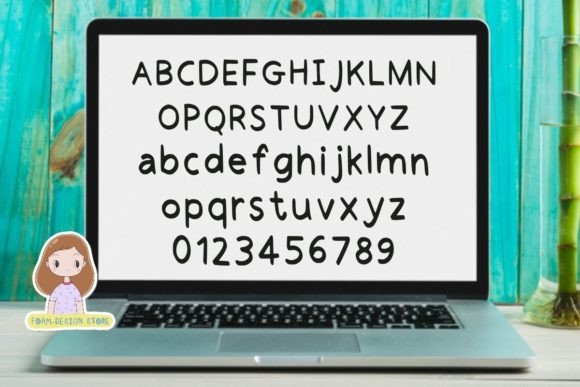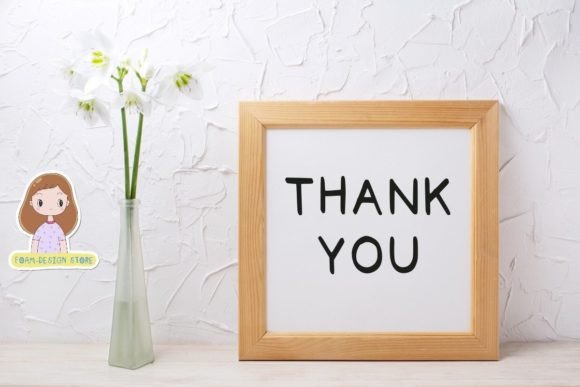
Introducing Gift Handmade Font: The Perfect Blend of Simplicity and Coolness
In the world of typography, a font can make all the difference in the way a message is conveyed. For designers, crafters, and digital artists, finding the right font can be a daunting task. However, if you’re looking for a font that exudes friendliness, simplicity, and coolness, look no further than the Gift Handmade Font. This versatile font is designed to cater to a wide range of contexts, making it an ideal choice for various creative projects.
What Makes Gift Handmade Font Special?
Gift Handmade is a simple and cool display font that boasts a friendly feel, making it incredibly flexible and adaptable to different design needs. Its unique charm lies in its ability to seamlessly blend into various contexts, from crafting and digital designing to presentations and more. The font’s trendy vibe and endless variations make it an exciting addition to any design project.
Key Features of Gift Handmade Font
- Simple yet Impactful: The Gift Handmade Font strikes the perfect balance between simplicity and visual appeal. Its clean lines and smooth curves make it easy to read and understand, while its unique style ensures it stands out from the crowd.
- Cool Display Font: As a display font, Gift Handmade is designed to grab attention and make a statement. Its cool and modern aesthetic makes it perfect for headlines, titles, and other prominent text elements.
- Flexible and Adaptable: The font’s friendly feel and versatile design make it suitable for a wide range of applications, from crafting and DIY projects to digital designs and presentations.
- Endless Variations: With Gift Handmade, the creative possibilities are endless. Experiment with different font sizes, colors, and styles to create unique and eye-catching designs.
Gift Handmade Font is an excellent choice for designers and crafters looking to add a personal touch to their projects. Whether you’re creating:
- Digital Designs: Use Gift Handmade to add a trendy and modern touch to your digital art, social media graphics, and website headers.
- Crafting Projects: Add a personal touch to your handmade crafts, such as cards, invitations, and DIY decorations.
- Presentations: Make your presentations more engaging and visually appealing with Gift Handmade’s clean and modern aesthetic.
Tips for Using Gift Handmade Font
- Experiment with Font Sizes: Play around with different font sizes to create visual hierarchy and emphasize important text elements.
- Mix and Match: Combine Gift Handmade with other fonts to create unique and interesting typography.
- Pay with Color: Use color to add depth and personality to your designs. Gift Handmade looks great in bold and bright colors.
| Font Name | Gift Handmade Font |
Gift Handmade Font is a versatile and stylish font that’s perfect for designers, crafters, and digital artists. Its friendly feel, simple design, and cool aesthetic make it an excellent choice for a wide range of creative projects. With its endless variations and flexibility, Gift Handmade is sure to become a go-to font in your design arsenal. So, have fun exploring its creative possibilities and make your designs stand out with Gift Handmade Font!